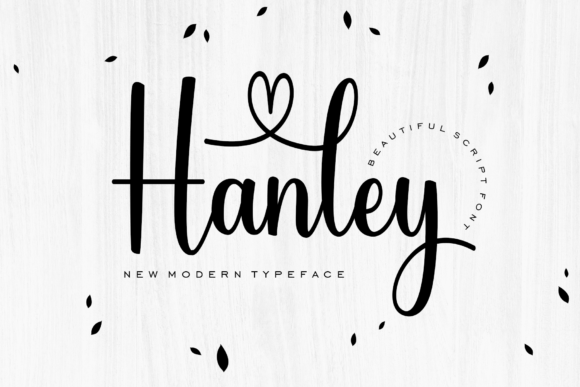
Journey into the realm of elegance and sophistication with Hanley Font, a script masterpiece that captivates the senses. Its flowing letterforms, reminiscent of a gentle stream, intertwine with grace and fluidity. Created by the visionary Artkenza, Hanley is a testament to timeless beauty, seamlessly blending classic charm with a modern flair.
Step into a world of endless creative possibilities, where Hanley's delicate lines and subtle curves lend an air of refinement to your designs. Whether you are crafting wedding invitations that exude romance or creating branding materials that command attention, Hanley is your trusted companion. Experience the joy of effortless elegance as you witness your designs transform into works of art.
Hanley's versatility knows no bounds. Its graceful strokes adapt effortlessly to a myriad of design projects, from logos that radiate professionalism to social media posts that exude personality. Unleash your imagination and embark on a journey of creativity, knowing that Hanley will elevate your designs to new heights.
Immerse yourself in the world of user experience and user interface design, where Hanley reigns supreme. Its meticulously crafted characters, optimized for clarity and readability, ensure a seamless user journey. Captivate your audience with intuitive interfaces and user-friendly designs that leave a lasting impression. Hanley is the key to unlocking a world of seamless interactions and engaging experiences.
Experience the transformative power of Hanley Font, a script masterpiece that transcends the ordinary. Its timeless beauty and unwavering elegance will leave an indelible mark on your designs, captivating your audience and leaving them in awe. Embrace the magic of Hanley and unlock the full potential of your creative vision.